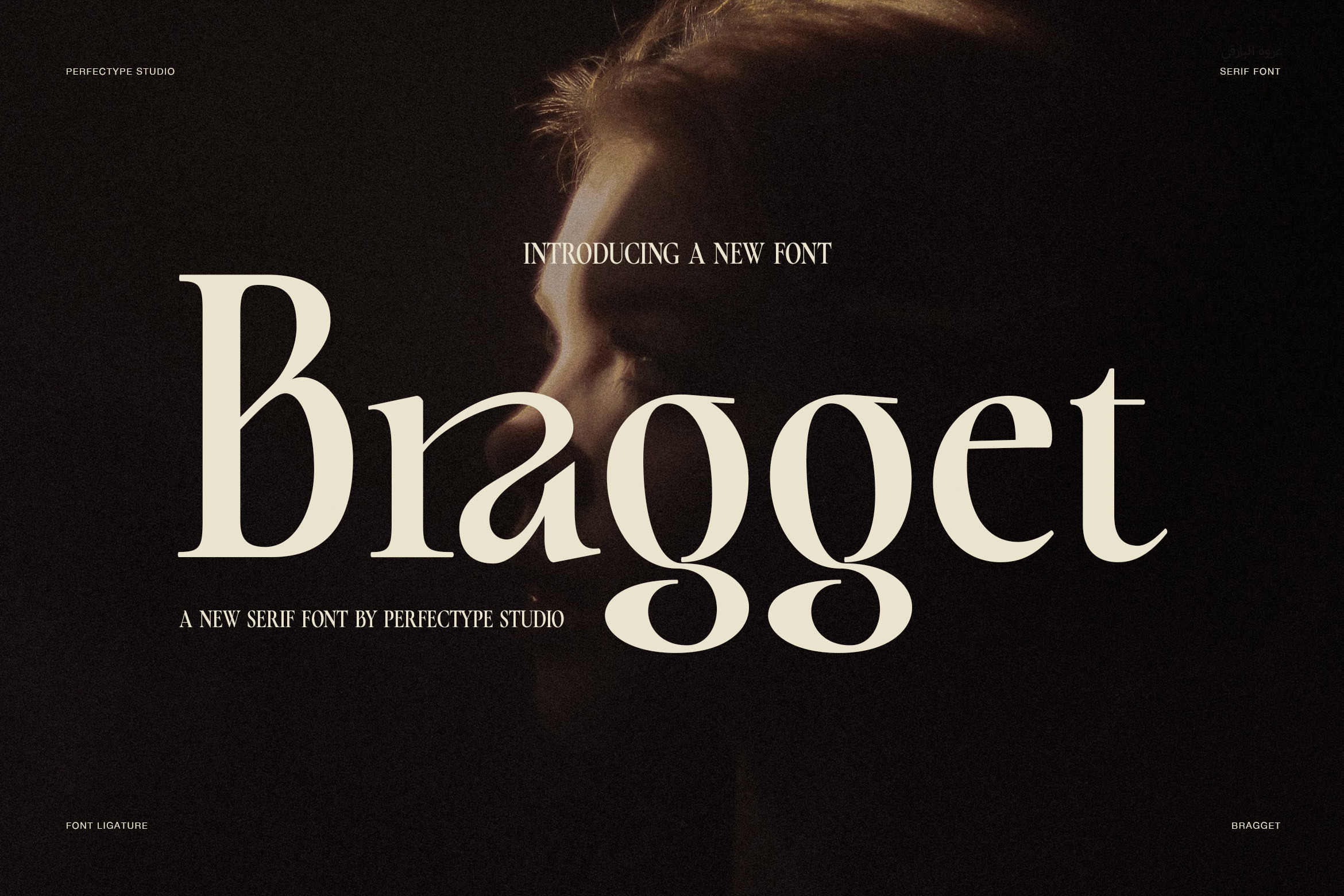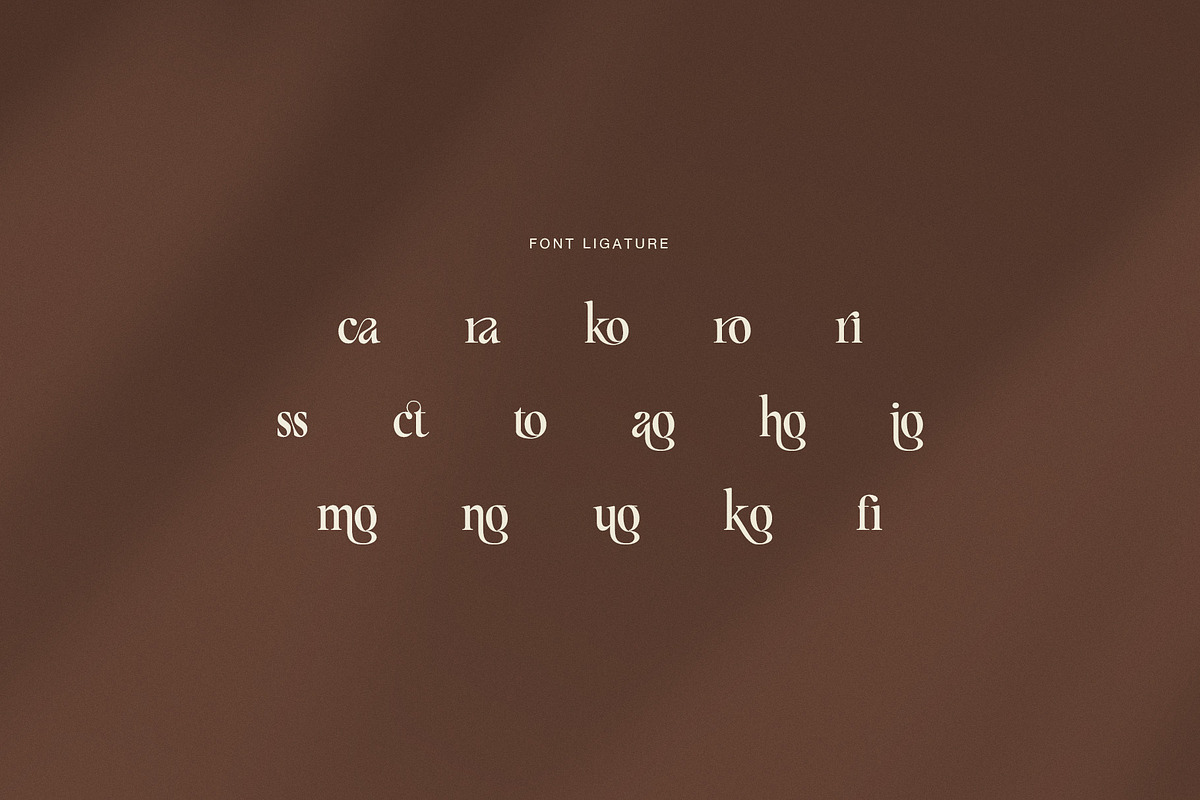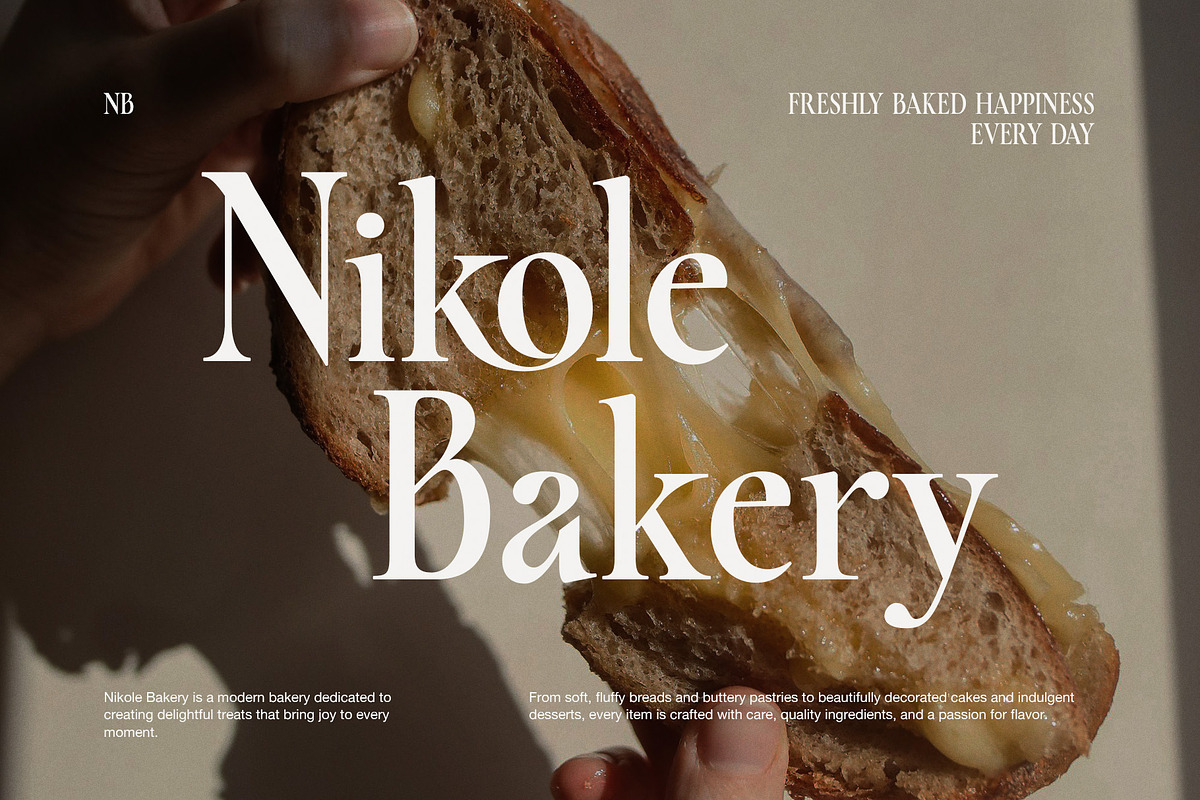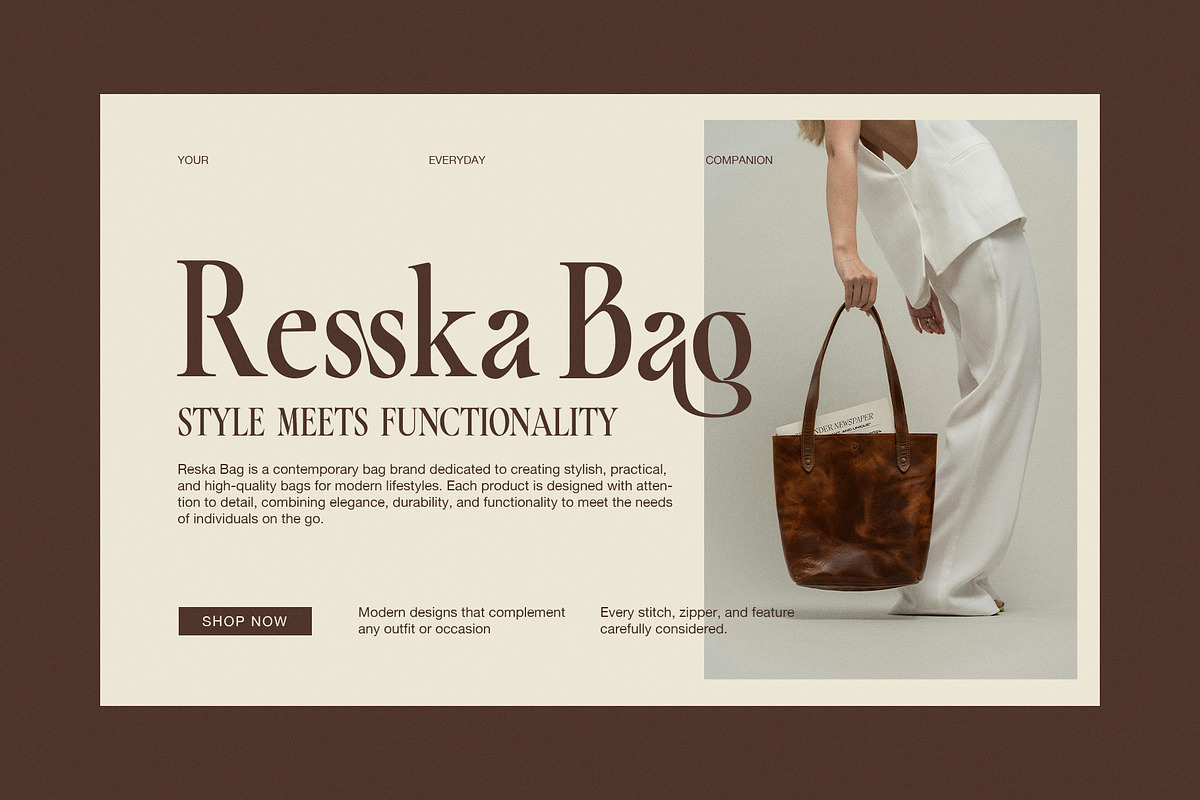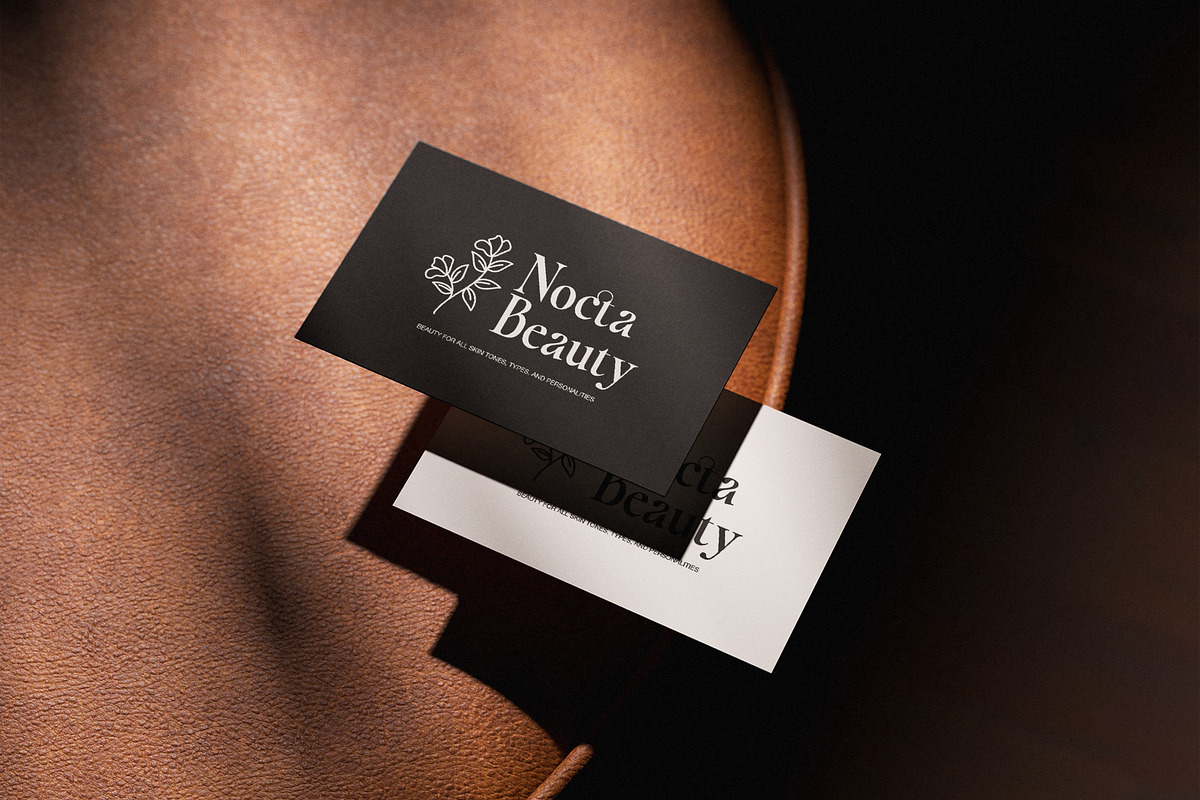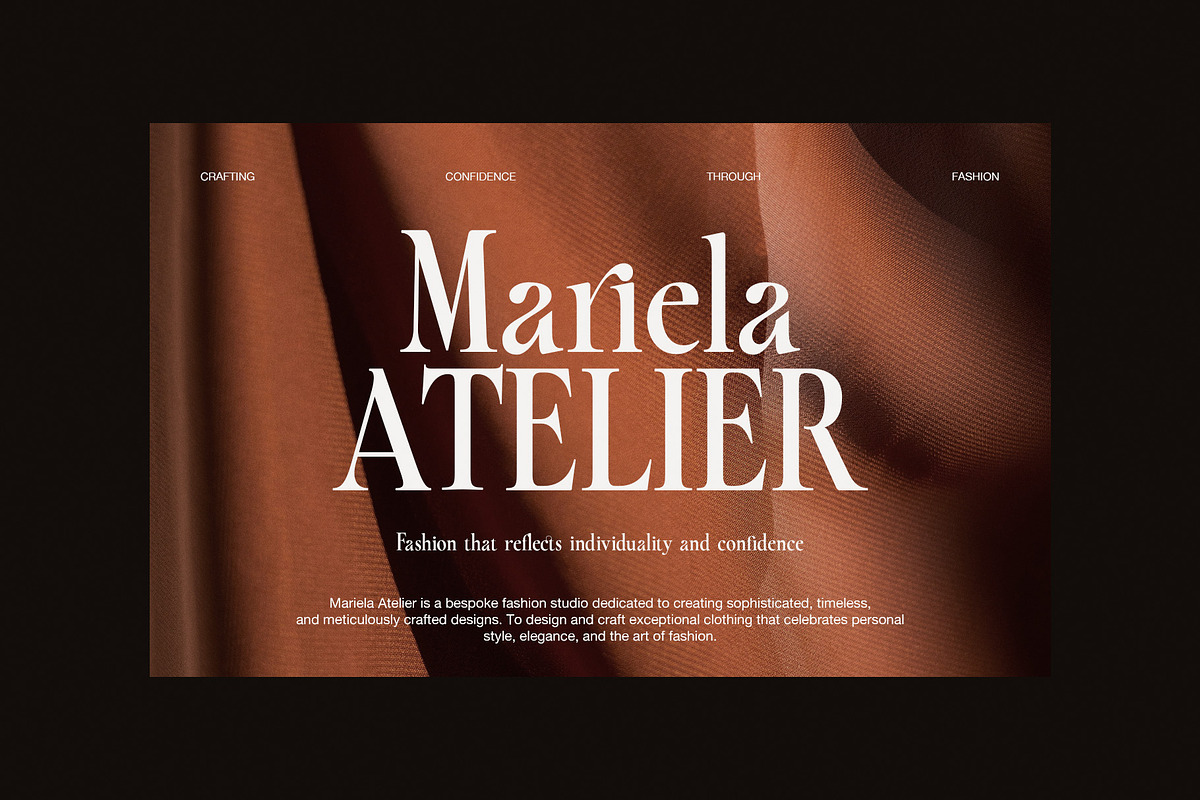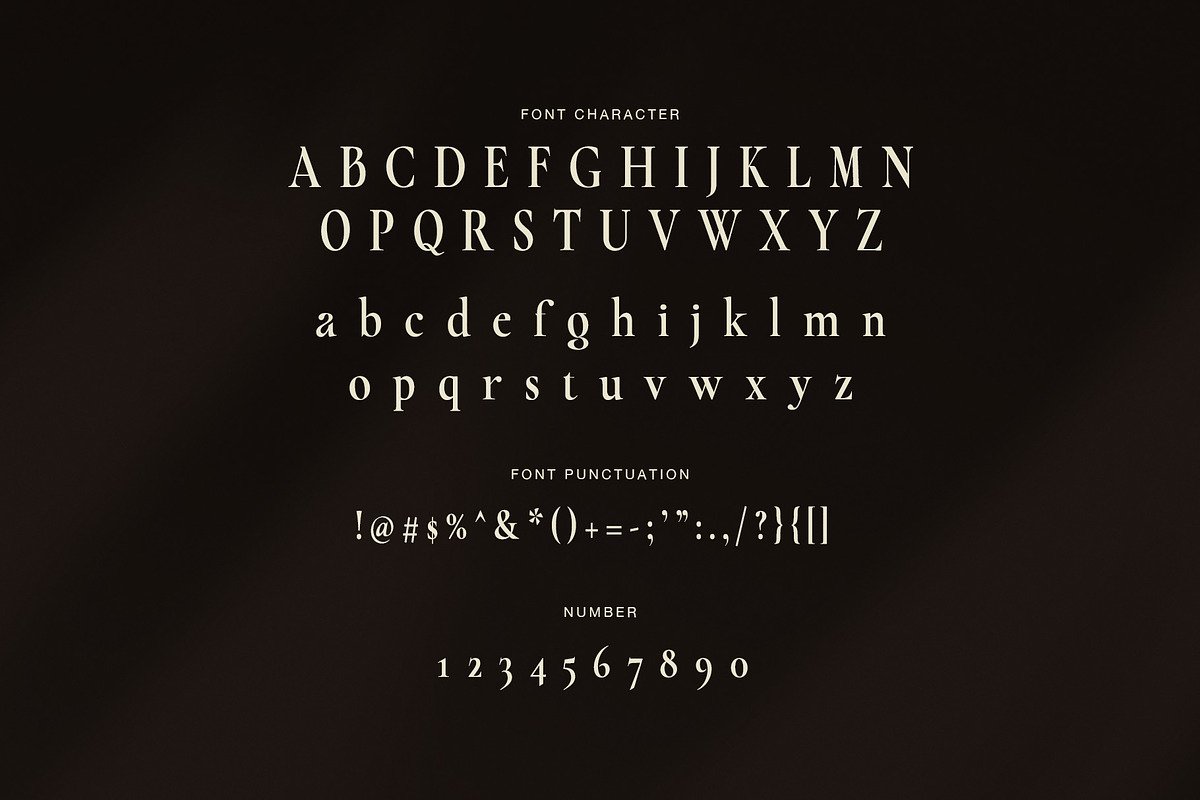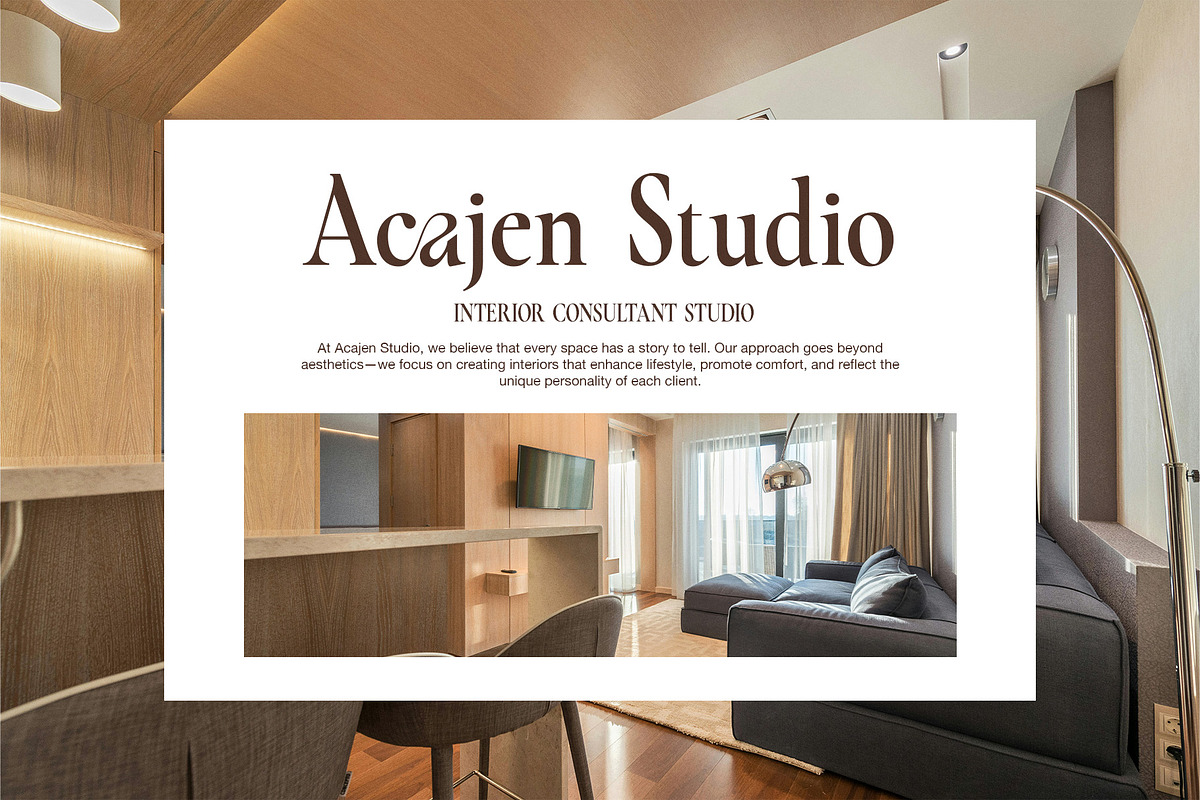
Bragget Elegant Serif Font
Bragget Elegant Serif Font is a refined display serif with a soft luxury mood and a modern classic feel. It combines graceful letterforms, clean contrast, and stylish ligatures, so it looks polished, elegant, and memorable. At first glance, the font feels calm and premium. However, the details give it a stronger personality that helps every word stand out.
The shape of Bragget is slim, balanced, and full of charm. In addition, the serif structure feels classic, while the smooth curves add a fresh and modern touch. Several characters have elegant proportions that make headlines look rich and stylish. Because of that, Bragget works beautifully for brands that want to feel timeless, graceful, and confident.
One of the strongest parts of this font is its ligature set. These ligatures make text flow in a smoother and more custom way. As a result, logos, brand names, and short titles look more refined. The font stays clean, yet it also feels artistic. Therefore, Bragget is a very useful choice for high-end branding and elegant visual design.
From the preview, Bragget fits many premium themes. It looks beautiful in bakery branding, fashion labels, beauty products, bag packaging, hotel promotion, interior design layouts, and luxury editorial work. Moreover, it also suits business cards, social media graphics, product packaging, boutique logos, and elegant quote designs. The font has a strong display presence, yet it still feels neat and easy to enjoy.
Main Features
- Elegant serif style with a modern classic feel
- Beautiful ligatures for smooth text flow
- Clean contrast and refined proportions
- Stylish look for logos and headlines
- Ideal for branding, packaging, and editorials
- Great for fashion, bakery, hotel, and beauty design
Why Designers Love It
Bragget gives every design a polished and graceful voice. Even so, it does not feel too formal or distant. The serif details bring elegance, while the ligatures add warmth and character. For that reason, the font is easy to use across many creative and premium projects.
If you need a serif font that feels elegant, luxurious, and timeless, Bragget Elegant Serif Font is a strong choice. It helps your design look more stylish, more refined, and more memorable. So, whether you create for fashion, beauty, hospitality, or packaging, this font can leave a lasting impression.